HAHAHA / AHAHAH
Threedotstype · Marian Misiak, Honza Zamojski · 2023
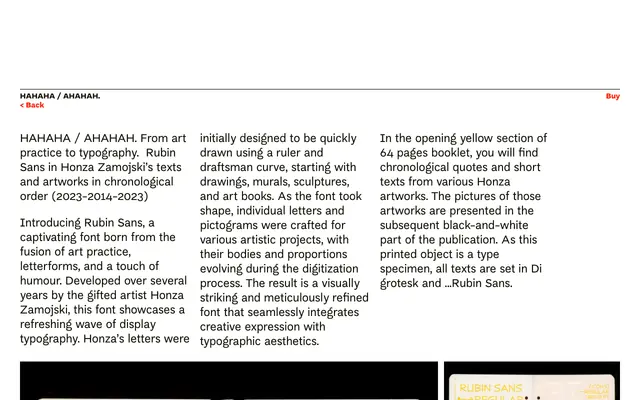
A type specimen booklet documenting Rubin Sans, a display sans drawn from the art practice of Polish artist Honza Zamojski across nearly a decade of drawings, murals and sculptures.
HAHAHA / AHAHAH is a 64-page printed specimen for Rubin Sans, a display font developed by Honza Zamojski from letters originally sketched with a ruler and draftsman curve for paintings, murals and art books. The booklet is split between a yellow section of chronological texts from Zamojski's artworks and a black-and-white photographic section, all set in Rubin Sans and Di Grotesk. Published by Threedotstype at 23 x 12.5cm, it functions as both an artist's monograph and a typographic record of the font's evolution from 2014 to 2023.
Rubin Sans is described as a display typography font, drawn with a ruler and draftsman curve, placing it firmly in the display category with grotesque influences given its sans-serif structure and artistic origins.